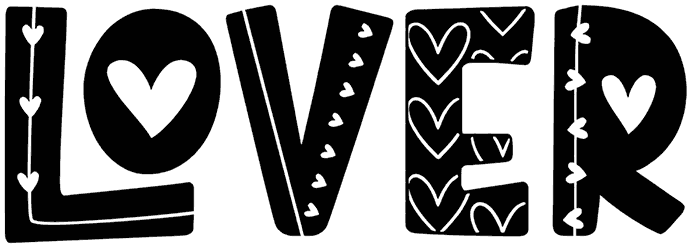
Darkness Font
Designed bySushiHueDesign
A journey of thousands of kilometers would begin with one step, and the first step of becoming a professional graphic designer would be choosing a display font such as Darkness.
This all-caps artwork can be really helpful in the middle of creating magazines, headlines, presentations, web pages, or stickers. Although numbers are not included in this 80s bold font, it still carries a feeling of professionalism, seriousness, or momentum.